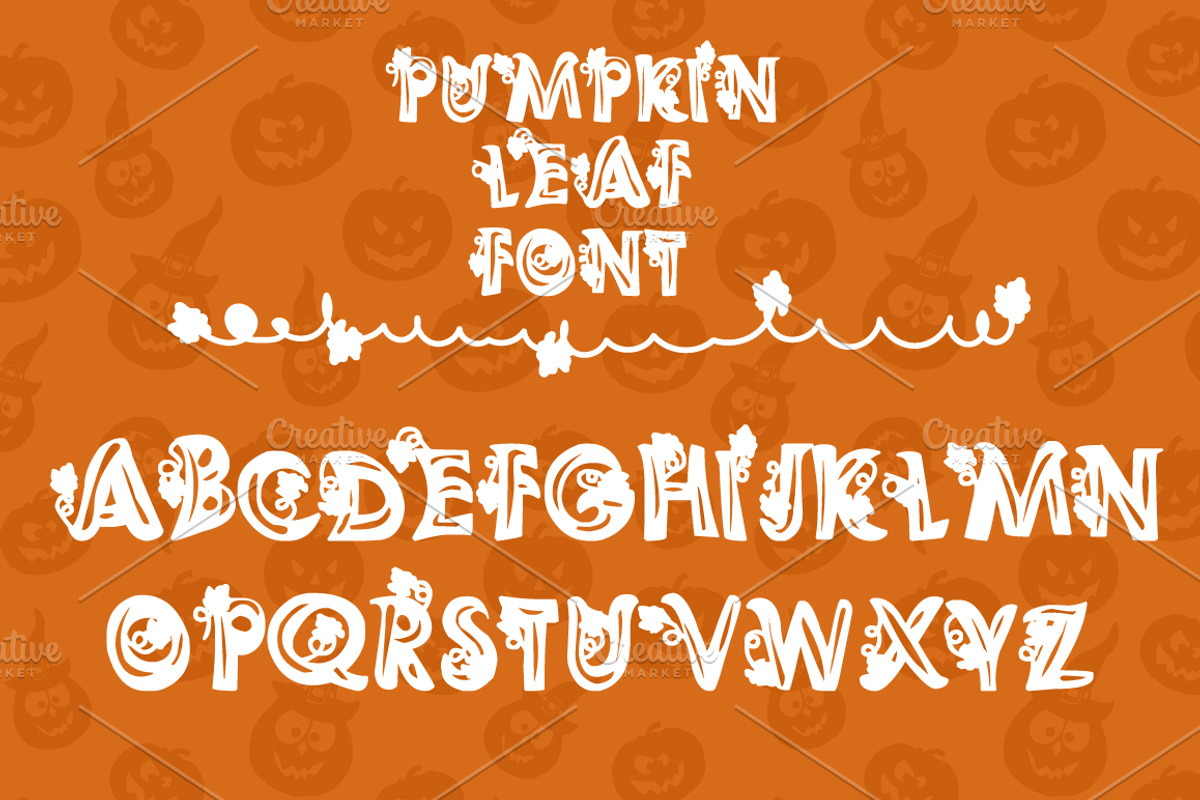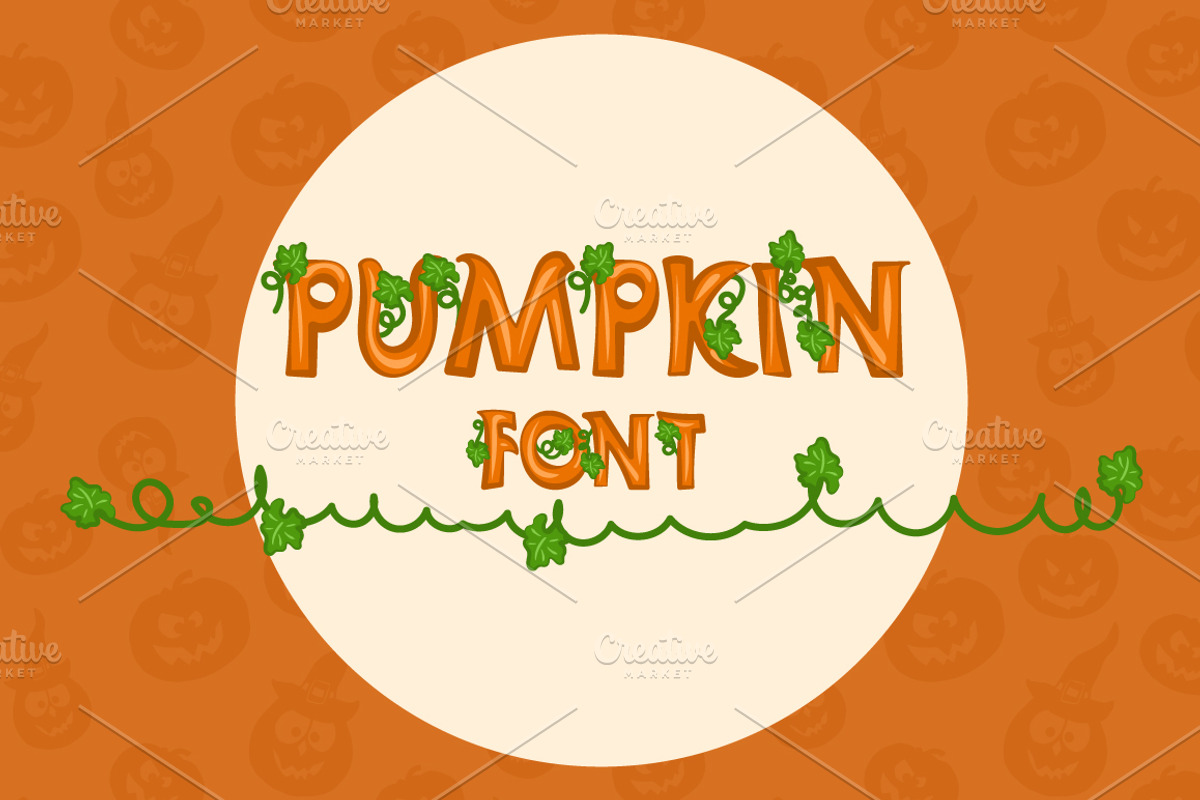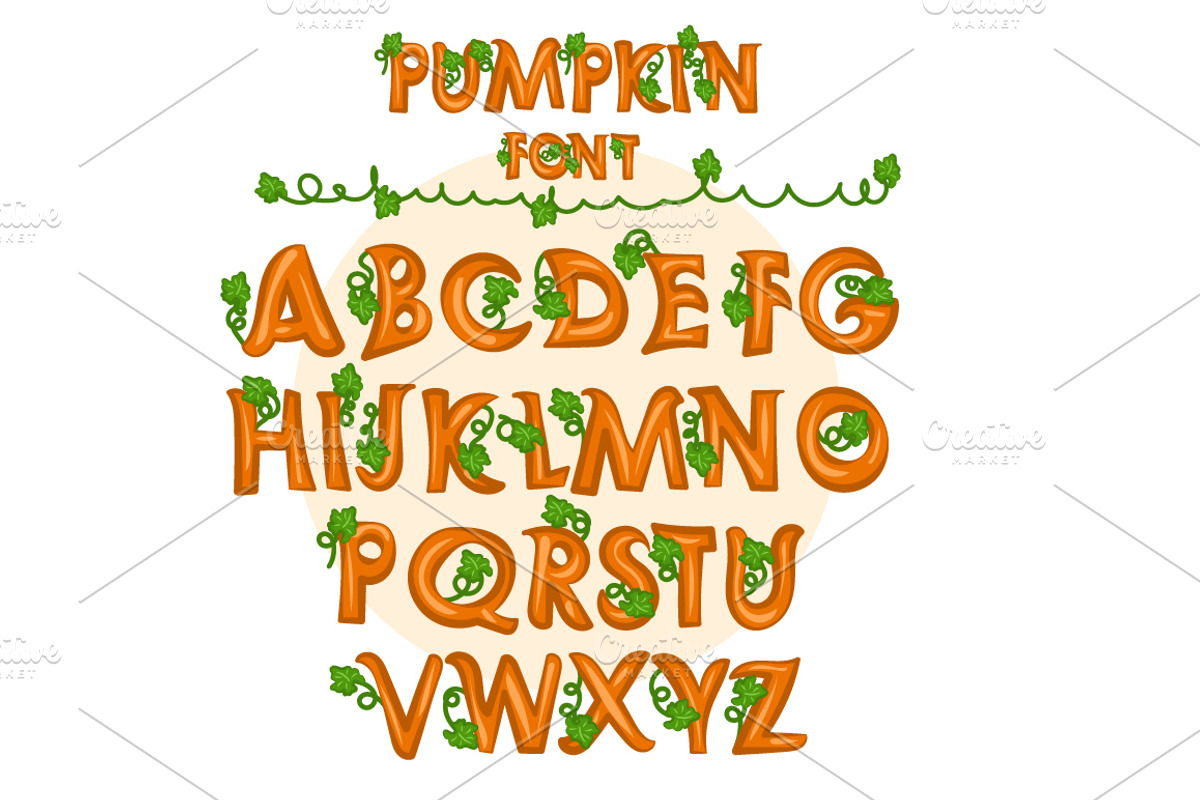
PUMPKIN LEAF FONT
A funny autumnal font uppercase. - PUMPKIN LEAF FONT
- A funny autumnal font uppercase.
PUMPKIN LEAF FONT by UVAconcept fits naturally into Branding, posters, packaging, typography.